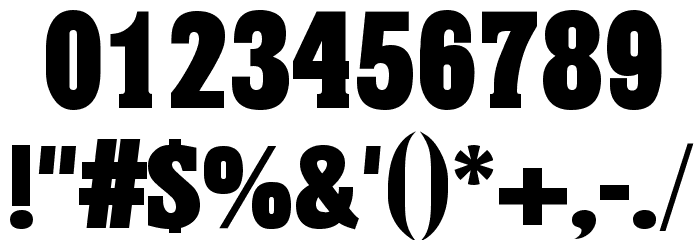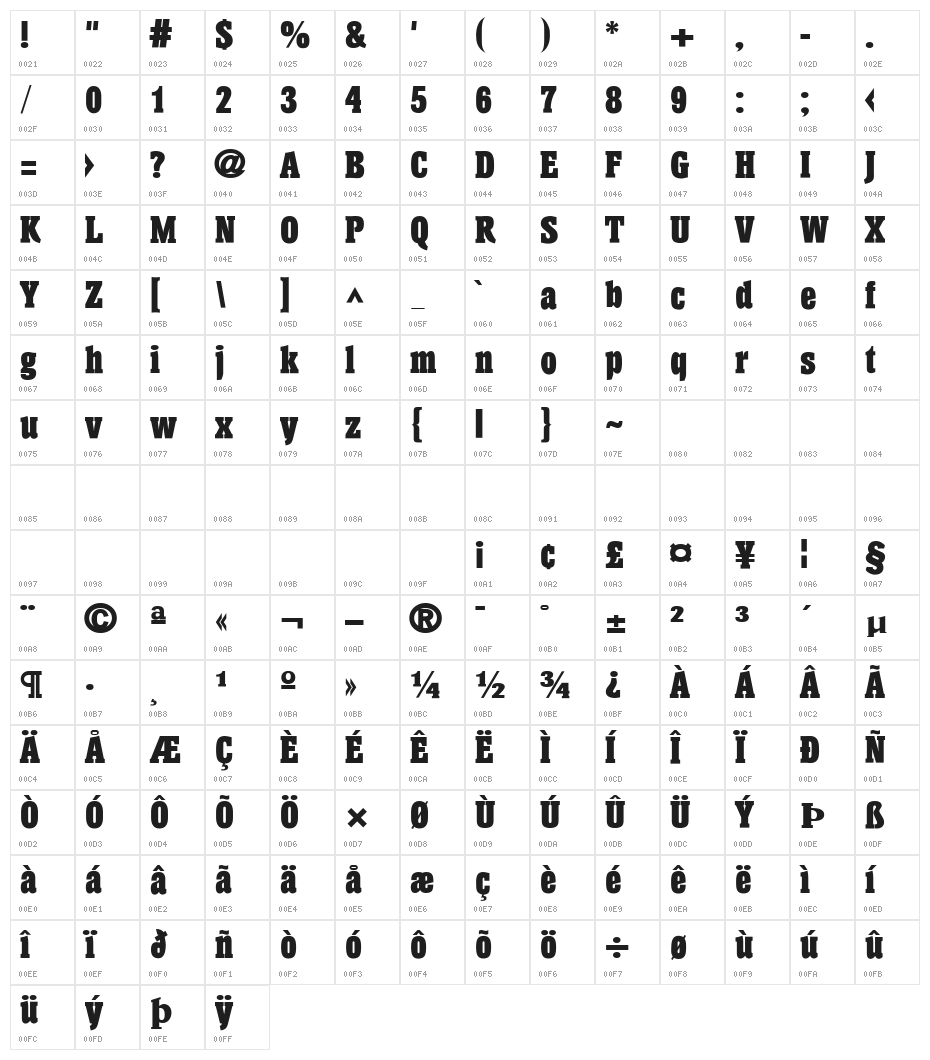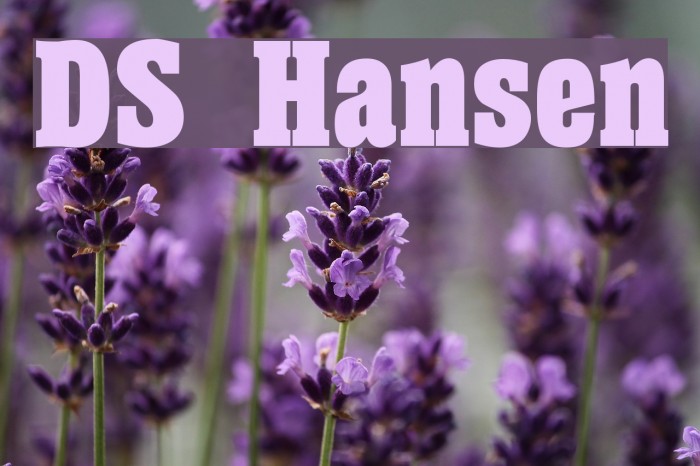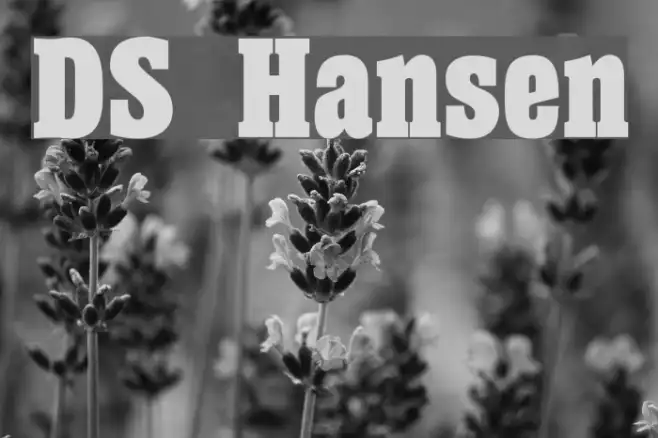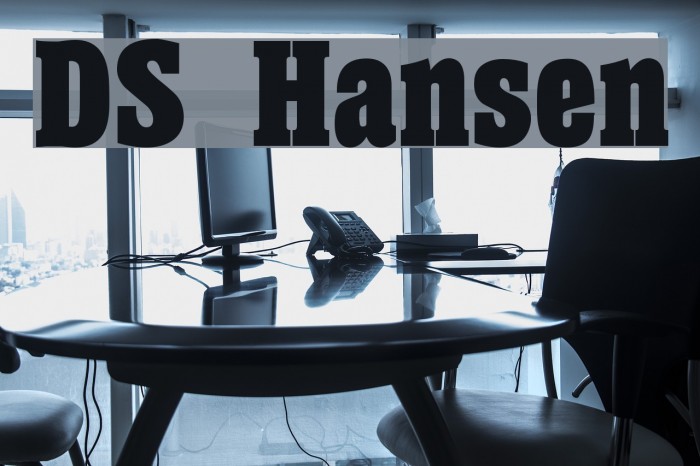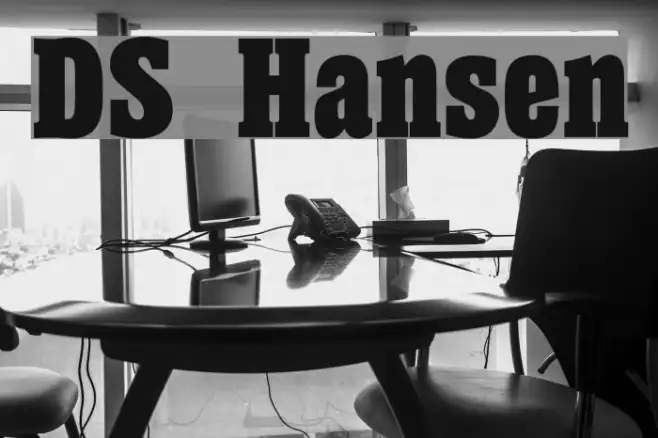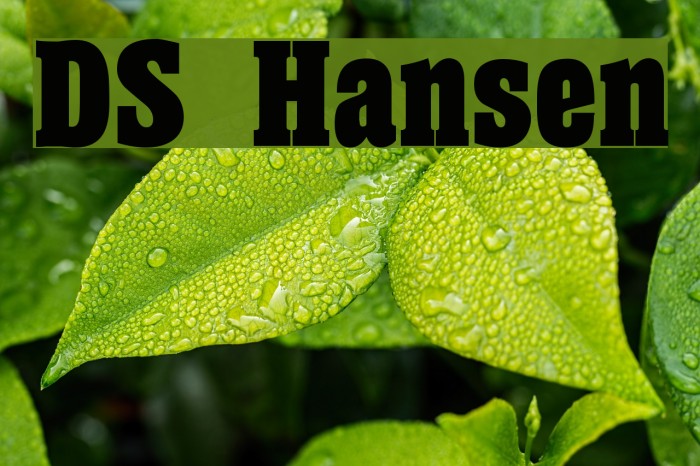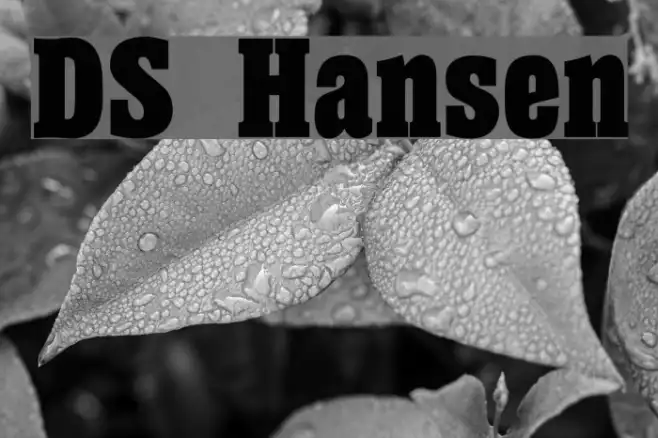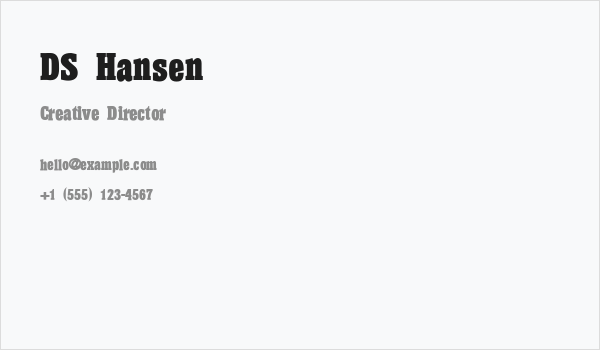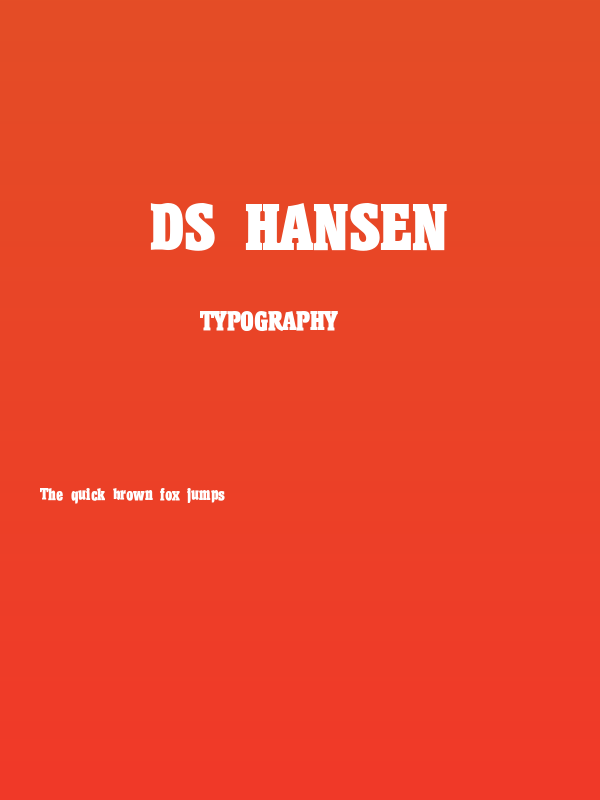
DS Hansen Font
DS Hansen Description
This font is characterized by its bold and impactful presence, featuring thick, blocky serifs that give it a strong and authoritative look. The uppercase letters are particularly striking, with a robust and solid structure that commands attention. The lowercase letters maintain this boldness, ensuring consistency across all text. Numbers and special characters are equally bold, making them stand out in any context. The overall design is reminiscent of vintage poster fonts, often used in headlines or signage to convey strength and reliability. The font's high contrast between thick and thin strokes adds to its dramatic appearance, making it ideal for projects that require a strong visual impact.
| Proposed Projects | Ideal for headlines, posters, signage, branding, and any project requiring a strong visual impact. |